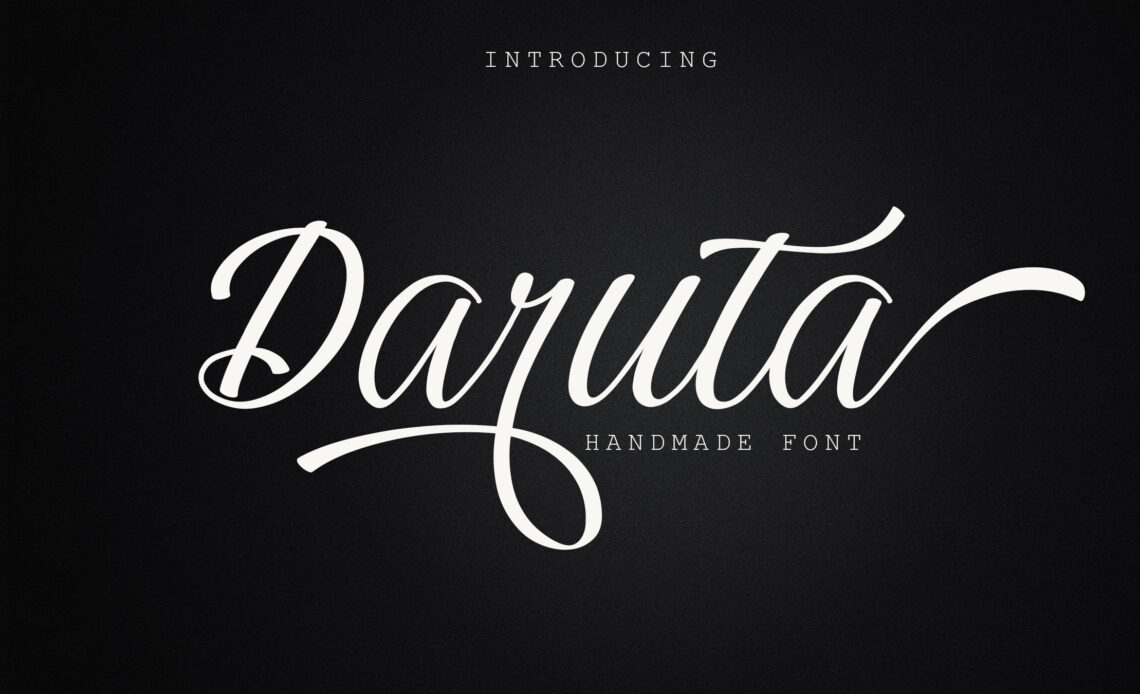
Encounter the Alluring Daruta Font Family: Where Script and Modernity Intertwine
Embark on a calligraphic journey with the Daruta Font Family, a captivating creation from No Gravity Type. This exquisite collection of four font variations—Script, Slant, Bold, and Line Shadow—seamlessly blends the timeless elegance of calligraphy with a refreshing modern aesthetic. Daruta is not merely a font; it's an expression of artistry, an invitation to unleash your creativity and craft designs that resonate with grace and authenticity.
Experience the Enchanting Script Variation: A Tapestry of Elegance
The Daruta Script variation is a symphony of handwritten charm. Its fluid strokes and delicate curves evoke the beauty of traditional calligraphy, capturing the essence of heartfelt messages and elegant compositions. With over 390 unique glyphs and 8 alternates, including initial and terminal letters, the Script variation grants you unparalleled versatility, ensuring that your designs exude individuality and charm.
Discover the Dynamic Slant Variation: A Touch of Playful Energy
Embrace the playful spirit of the Daruta Slant variation, where letters dance across the page with a vivacious tilt. This variation adds a touch of dynamism to your designs, perfect for capturing attention and creating a lasting impression. The Slant variation is ideal for headlines, logos, branding, and any project that demands an energetic and youthful vibe.
Unleash the Power of the Bold Variation: Bold Statements with Unwavering Strength
Make a statement with the Daruta Bold variation, a font that exudes confidence and authority. Its thick, unwavering strokes command attention, ensuring your message cuts through the noise and captivates your audience. Ideal for titles, posters, and designs that demand a strong presence, the Bold variation is the perfect choice for leaving an indelible mark.
Explore the Enigmatic Line Shadow Variation: A Fusion of Light and Shadow
Immerse yourself in the mystique of the Daruta Line Shadow variation, where letters are enveloped in an ethereal shadow, creating a captivating interplay of light and darkness. This variation exudes an air of intrigue and mystery, making it perfect for designs that evoke a sense of wonder and imagination. Use the Line Shadow variation to craft logos, posters, and social media graphics that intrigue and inspire.